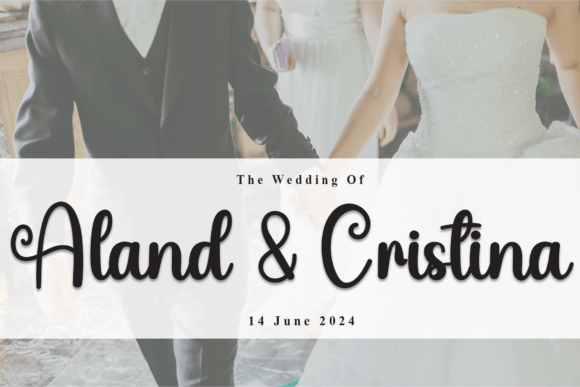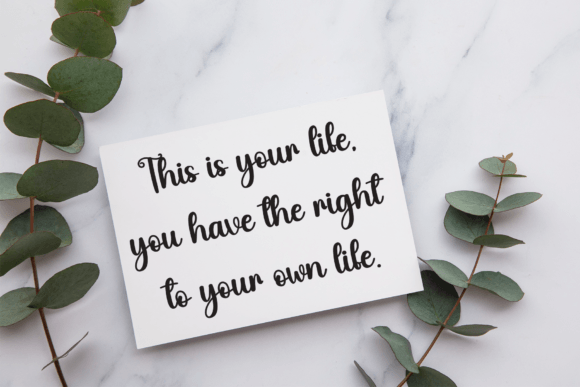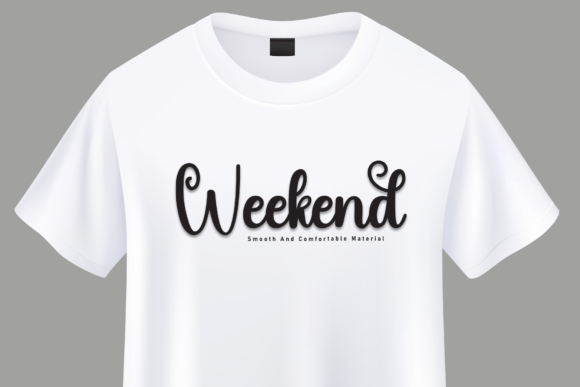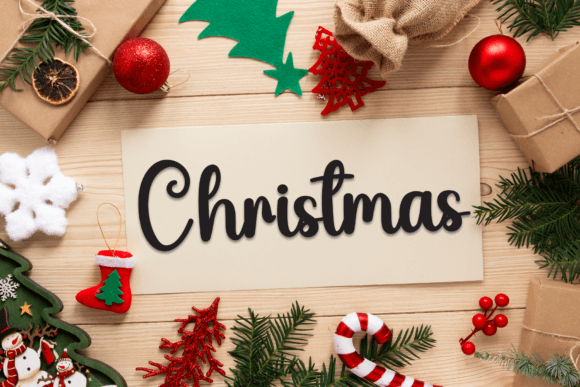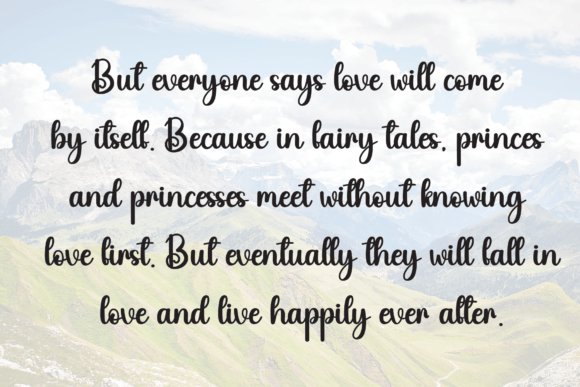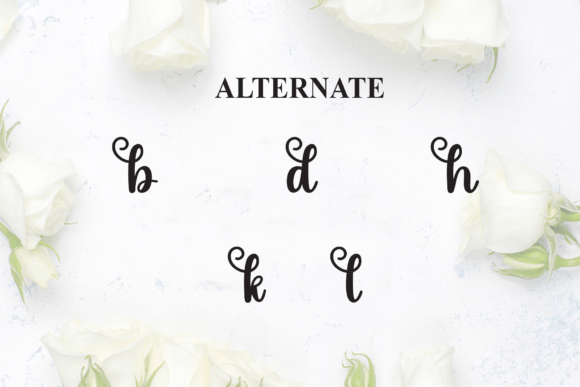
Hello Font: The Enchanting Handwritten Typeface for Your Design Projects
Are you looking for a font that can add a touch of magic to your design projects? Look no further than Hello Font, an enchanting and affable handwritten typeface that is sure to delight. With its adorable and playful spirit, this delightful font promises to bring a sense of joy and whimsy to your wedding invitations, personal cards, and any other design project that requires a dash of charm.
The Charm of Hello Font
Hello Font is a hand-lettered typeface that exudes warmth and endearment. Its intricately crafted letters are designed to evoke a sense of intimacy and connection, making it perfect for designs that require a charming and personal touch. Whether you’re a designer, crafter, or DIY enthusiast, Hello Font is sure to become your go-to choice for projects that require a touch of whimsy and delight.
What Makes Hello Font So Special?
So, what sets Hello Font apart from other typefaces? Here are just a few features that make it so special:
• Hand-lettered with love: Hello Font is carefully crafted by hand, with each letter and character lovingly designed to bring a sense of warmth and personality to your designs.
• Adorable and playful spirit: This delightful font has a playful and adventurous spirit that is sure to bring a smile to your audience’s faces.
• Perfect for wedding invitations and personal cards: Hello Font is ideal for wedding invitations, personal cards, and any other design project that requires a touch of elegance and sophistication.
• Versatile and flexible: Whether you’re designing for print or digital, Hello Font is versatile and flexible enough to work seamlessly across different mediums and applications.
How to Use Hello Font in Your Design Projects
Using Hello Font in your design projects is easy and straightforward. Here are a few tips to get you started:
• Pair it with other fonts: Hello Font pairs beautifully with other fonts, so don’t be afraid to experiment with different combinations to find the perfect look for your project.
• Use it for headings and titles: Hello Font is perfect for headings and titles, where its playful and adventurous spirit can really shine.
• Add a personal touch: Use Hello Font to add a personal touch to your designs, whether it’s a wedding invitation, personal card, or social media graphic.
Why Designers and Crafters Love Hello Font
Hello Font has quickly become a favorite among designers and crafters, and for good reason. Here are just a few reasons why:
• Unique and distinctive: Hello Font is a unique and distinctive typeface that sets itself apart from more traditional fonts.
• Easy to read and use: Despite its playful and adventurous spirit, Hello Font is easy to read and use, making it perfect for a wide range of design projects.
• Adds a touch of personality: Hello Font adds a touch of personality to any design project, making it perfect for designers and crafters who want to create something truly special.
In conclusion, Hello Font is a delightful and enchanting handwritten typeface that is sure to bring a touch of magic to your design projects. With its adorable and playful spirit, intricately crafted letters, and versatile and flexible design, Hello Font is perfect for designers, crafters, and DIY enthusiasts who want to add a dash of joy and whimsy to their work. So why not give it a try and see the difference it can make?
Get Ready to Fall in Love with Hello Font